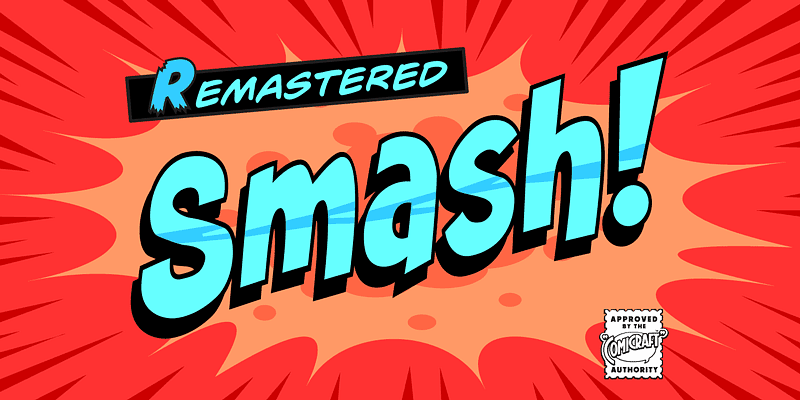
CC Smash Font Free Download is a bold and dynamic display typeface designed for high-impact use. With its sharp, angular letterforms and modern design, it is perfect for creating striking headlines, posters, branding, logos, and any design that demands attention.
CC Smash Font is ideal for large-scale text, offering both visual appeal and legibility. It integrates seamlessly with design tools like Adobe Illustrator, Photoshop, Figma, and Canva, making it a versatile choice for both print and digital projects.